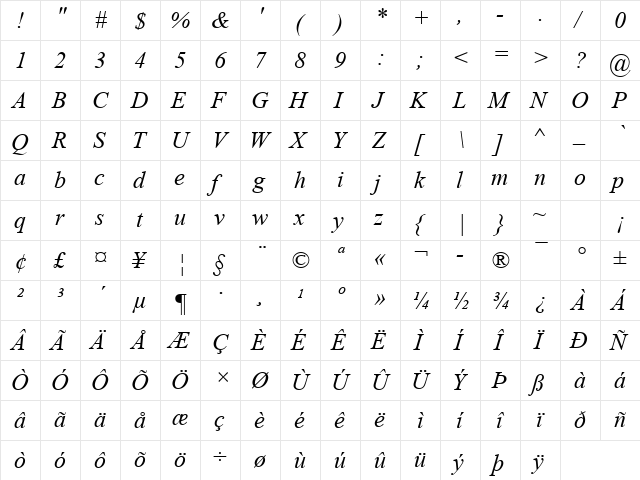
Times New Roman Italic
| Foundry | Monotype Typography |
| Designer | Monotype Type Drawing Office - Stanley Morison, Victor Lardent 1932 |
Design Context for Times New Roman Typeface
Times New Roman is a composed and adaptable typeface that performs quietly and consistently across a wide range of design contexts. Its italic angle brings a sense of urgency and motion to the letterforms.
Pro Tip: Try Times New Roman for annotation and caption copy alongside an upright companion — the contrast in angle creates a dynamic but ordered typographic system.